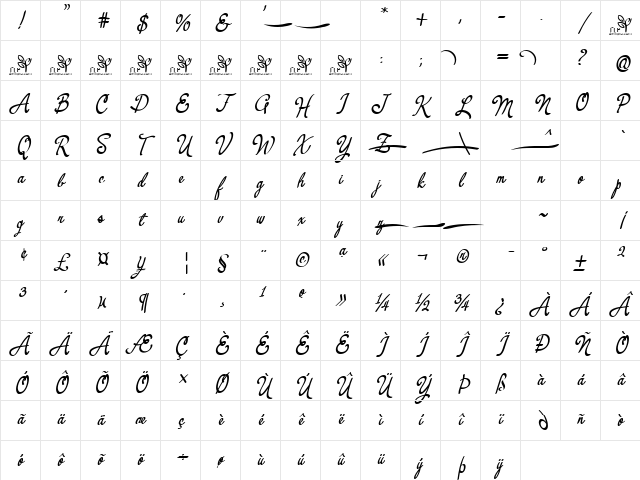
Yerbaluisa FFP Free Font
Yerbaluisa FFP
Foundry: Fernando Haro
Designer: deFharo
Design Context for Yerbaluisa
Yerbaluisa is a composed and adaptable typeface that performs quietly and consistently across a wide range of design contexts.